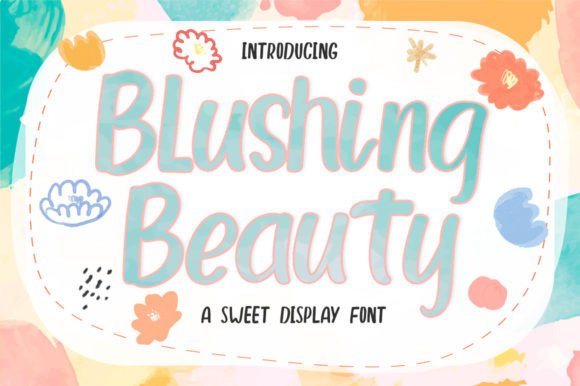
The Blushing Beauty Font: A Sweet Addition to Your Design Arsenal
Ah, the elusive perfect font. You know, that one font that makes your design project go from meh to mesmerizing. I’ve been there, done that, and got the t-shirt (which, coincidentally, was designed with a fabulous font). As a designer, I’ve had my fair share of font frustrations, but today I’m excited to share with you a sweet handwritten display font that’s stolen my heart: Blushing Beauty.
First Impressions: A Cute and Fancy Font
Blushing Beauty is a lovely, sweet handwritten display font that exudes charm and playfulness. Its elegant strokes and delicate flair make it perfect for a variety of design projects, from logos and posters to menus and educational materials. Whether you’re a designer, crafter, or creative hobbyist, this font is sure to delight.
• ✨ Sweet and feminine: Blushing Beauty has a distinctly feminine touch that’s perfect for designs that require a touch of elegance.
• ✅ Highly versatile: This font is suitable for a wide range of projects, from formal to informal, and can be used for both digital and print designs.
• 💕 Easy to read: Despite its delicate nature, Blushing Beauty is surprisingly easy to read, making it perfect for body text and captions.
⚠️ While Blushing Beauty is an excellent font, it’s not without its limitations. For instance, it can be a bit too ornate for very simple designs or projects that require a more minimalist approach. Additionally, some users may find the font’s sweetness a tad too overpowering for certain projects.
🤔 Another thing to consider is that, like many handwritten fonts, Blushing Beauty may not be the best choice for very long blocks of text. Its elegance shines best in shorter texts, such as headings, titles, and captions.
4. Experiment with OpenType features, such as ligatures and stylistic alternates, to add more flair to your text.
Blushing Beauty was inspired by the delicate, hand-painted signs and typography of the early 20th century. Its designer sought to create a font that captured the essence of feminine elegance and sweetness, while still being versatile and easy to use. The result is a font that’s both beautiful and functional.
Q: What type of projects is Blushing Beauty best suited for?
A: Blushing Beauty is perfect for a variety of projects, including logos, posters, menus, clothing designs, educational materials, and quotes.
Q: Is Blushing Beauty easy to read?
A: Yes, despite its delicate nature, Blushing Beauty is surprisingly easy to read, making it perfect for body text and captions.